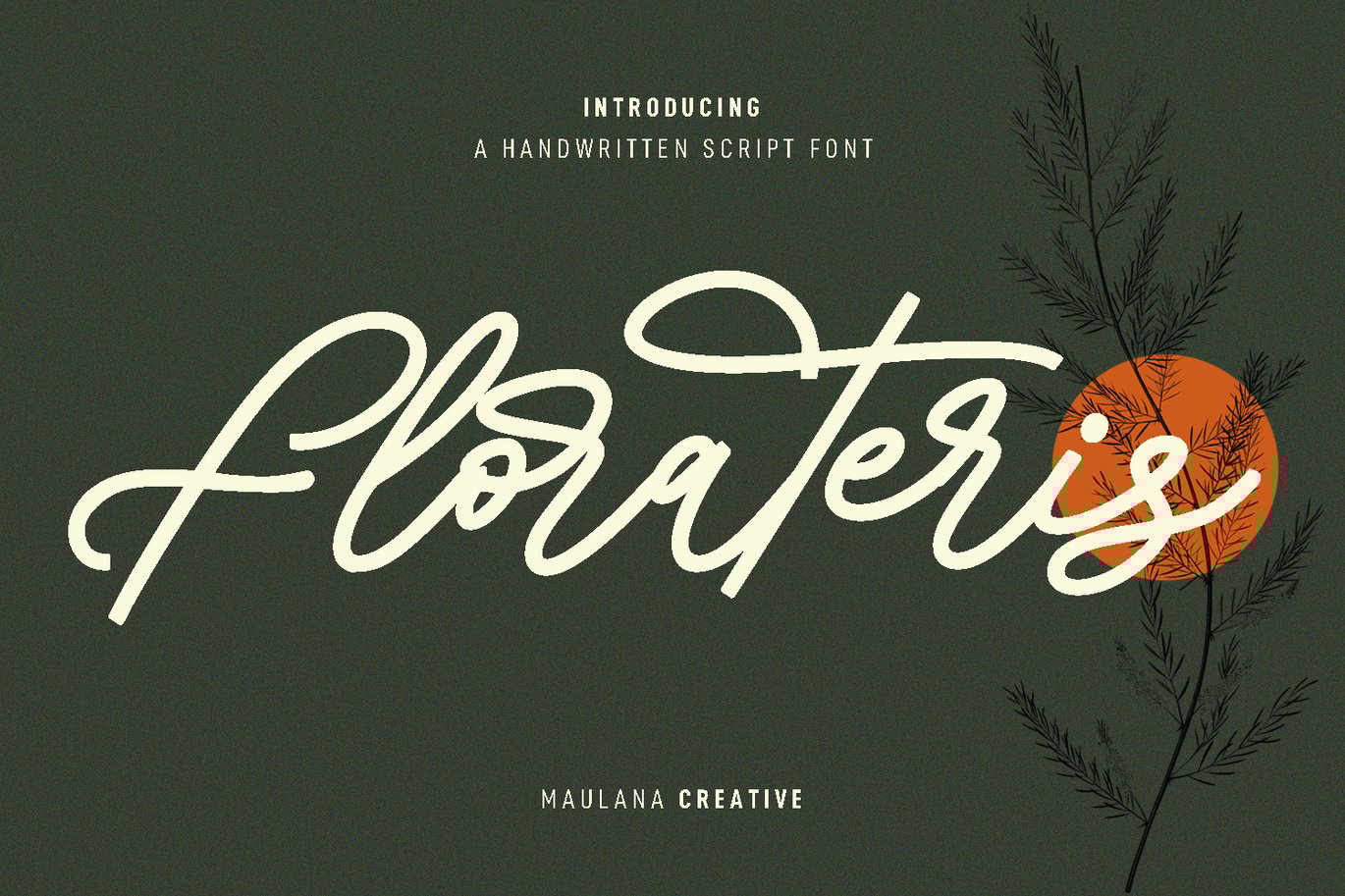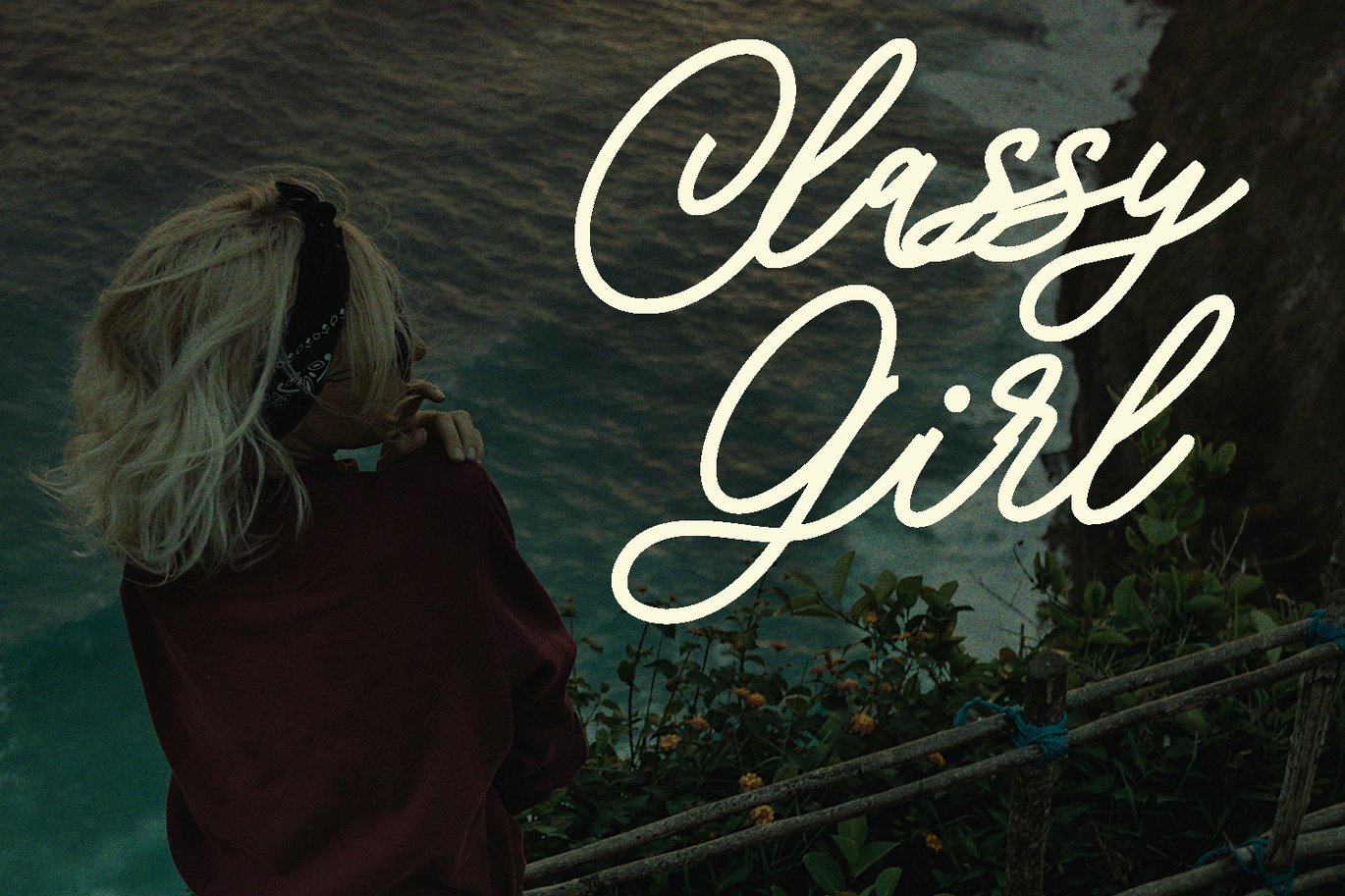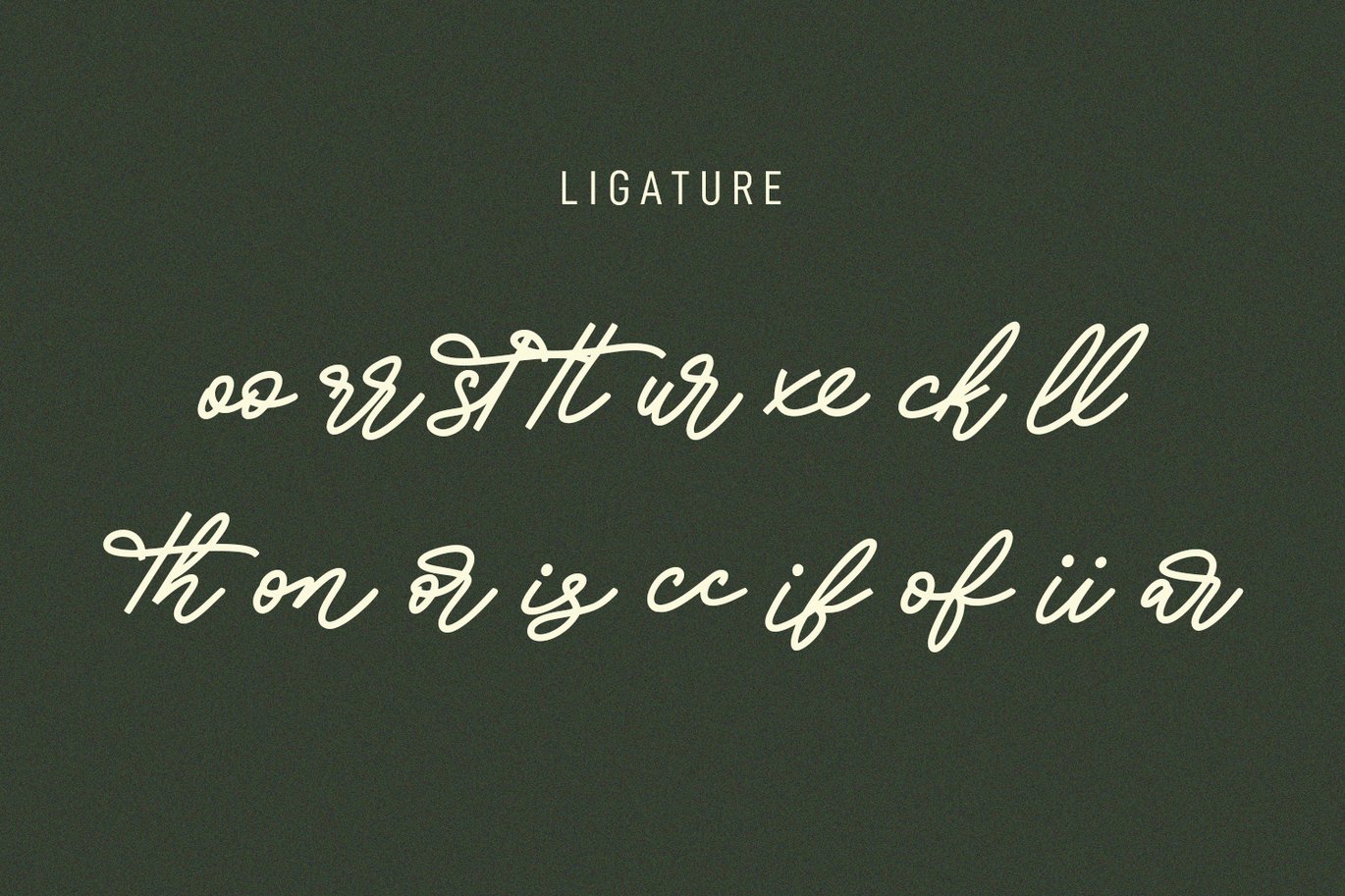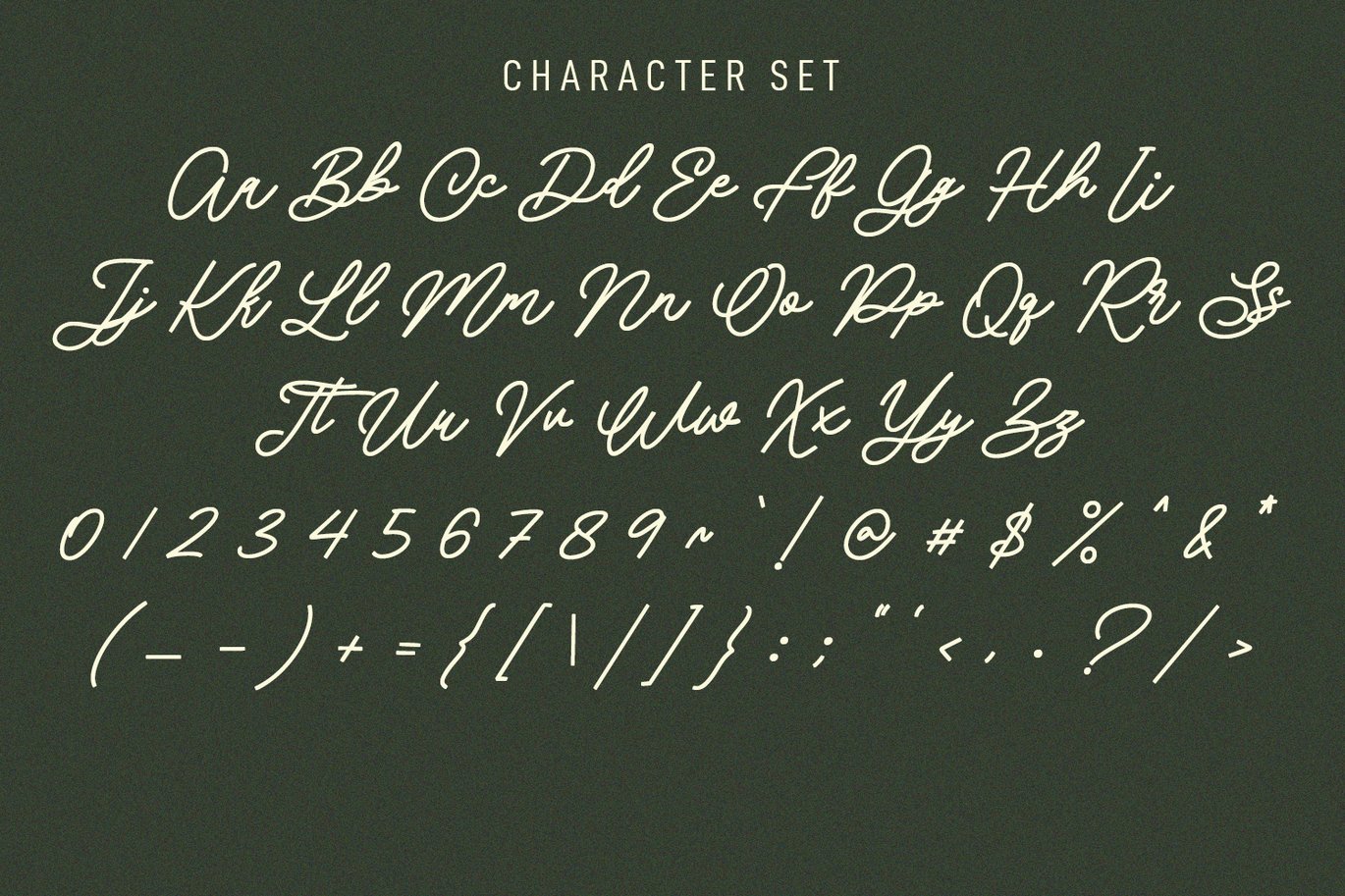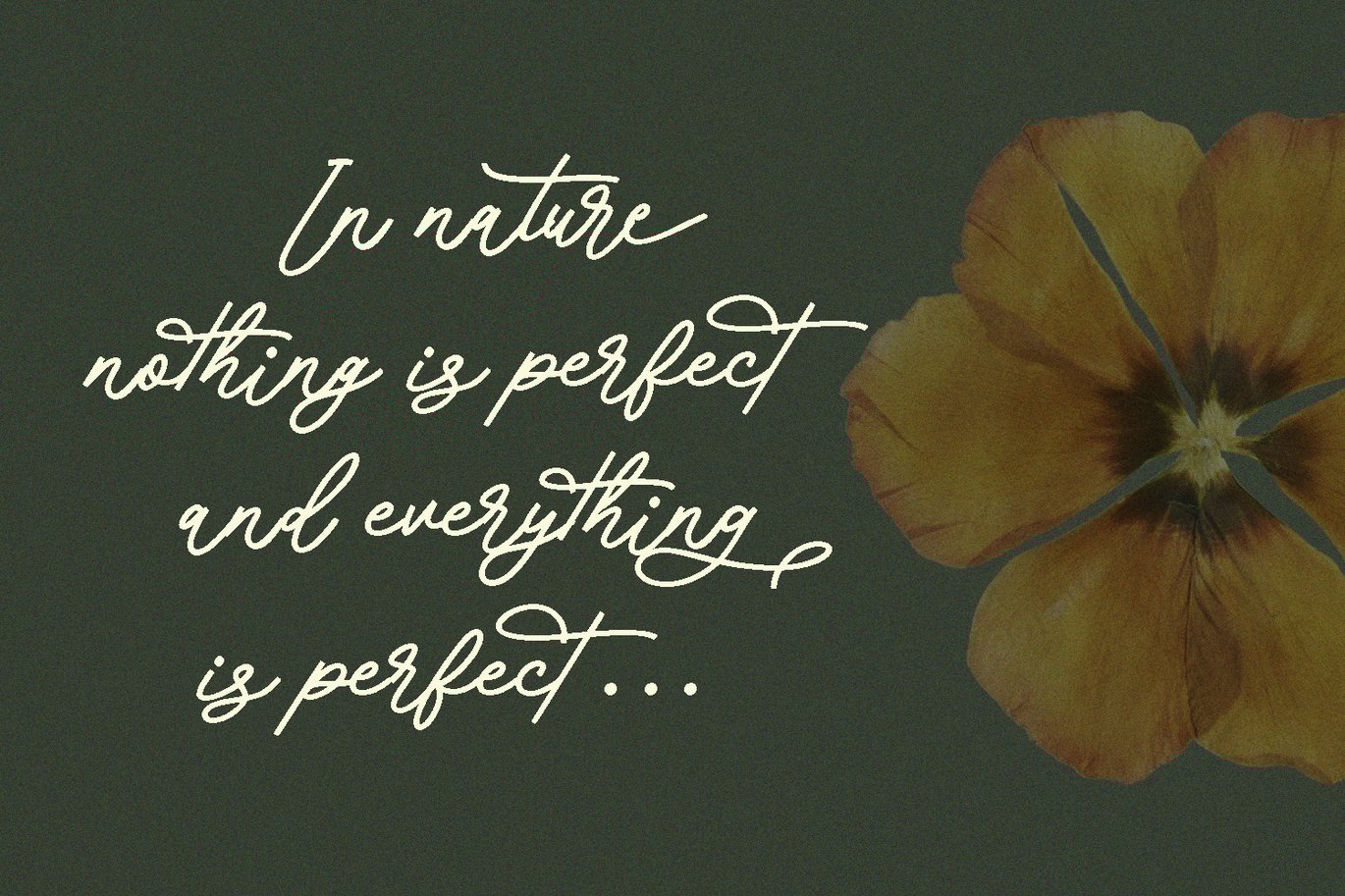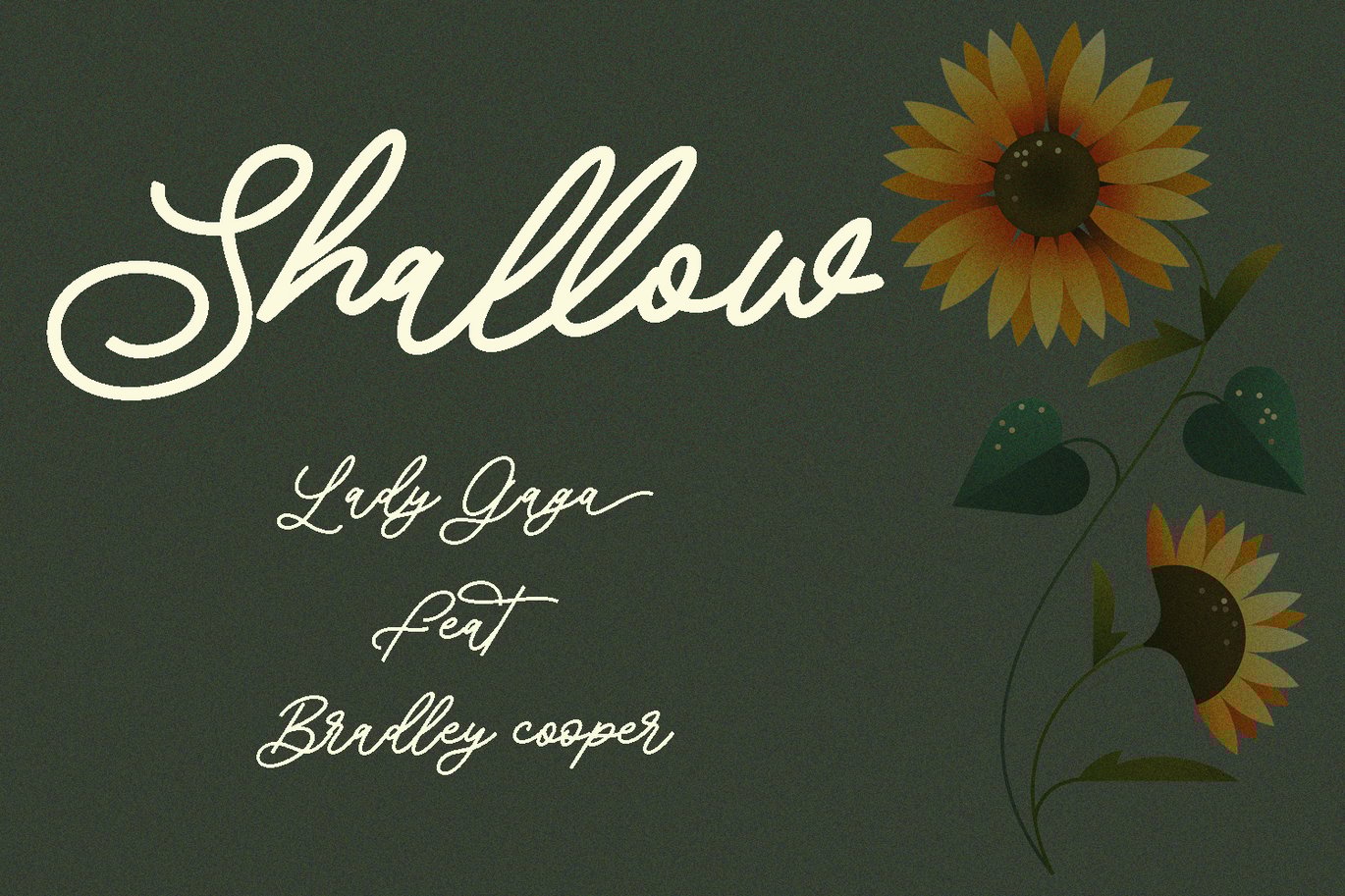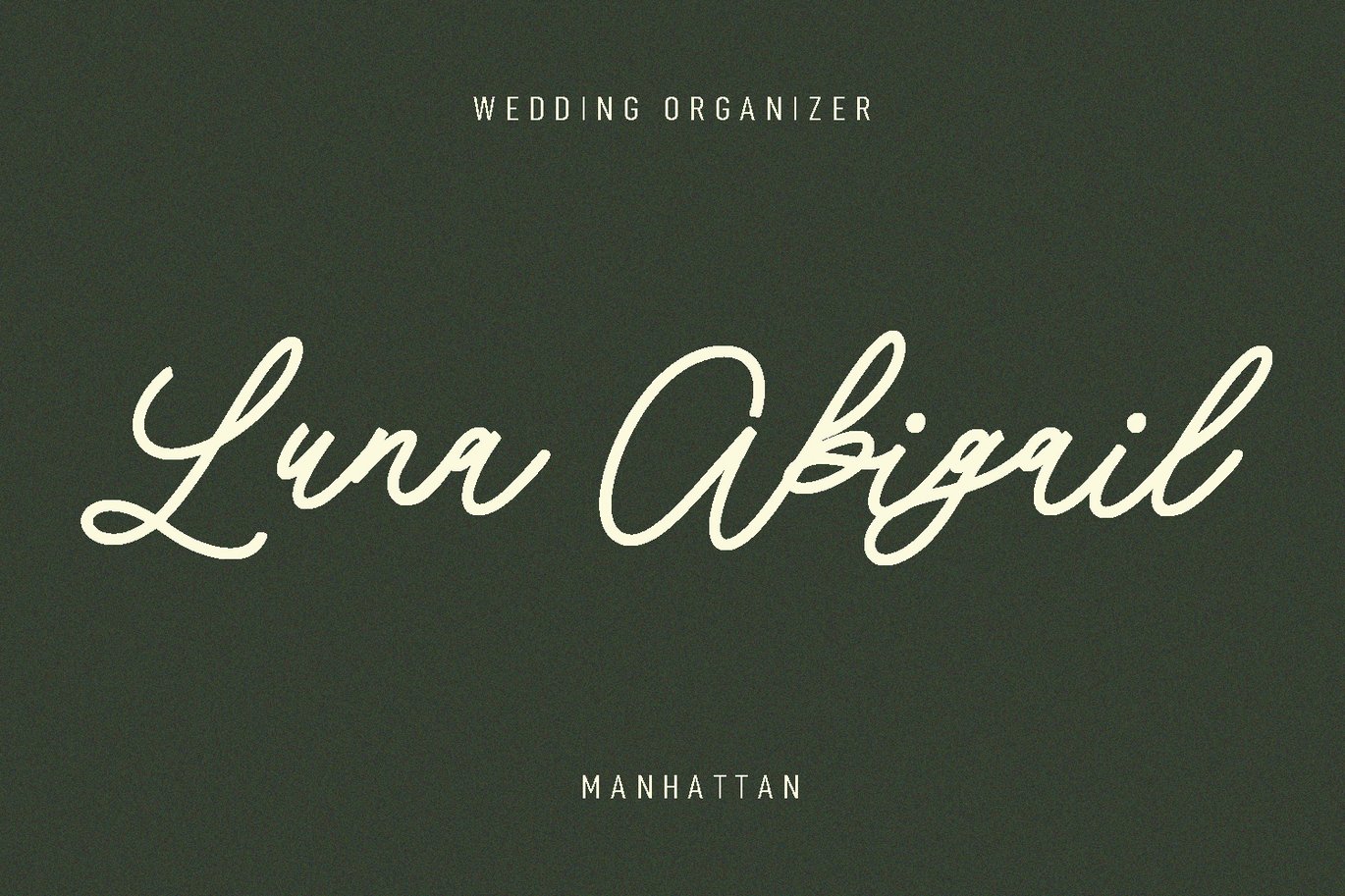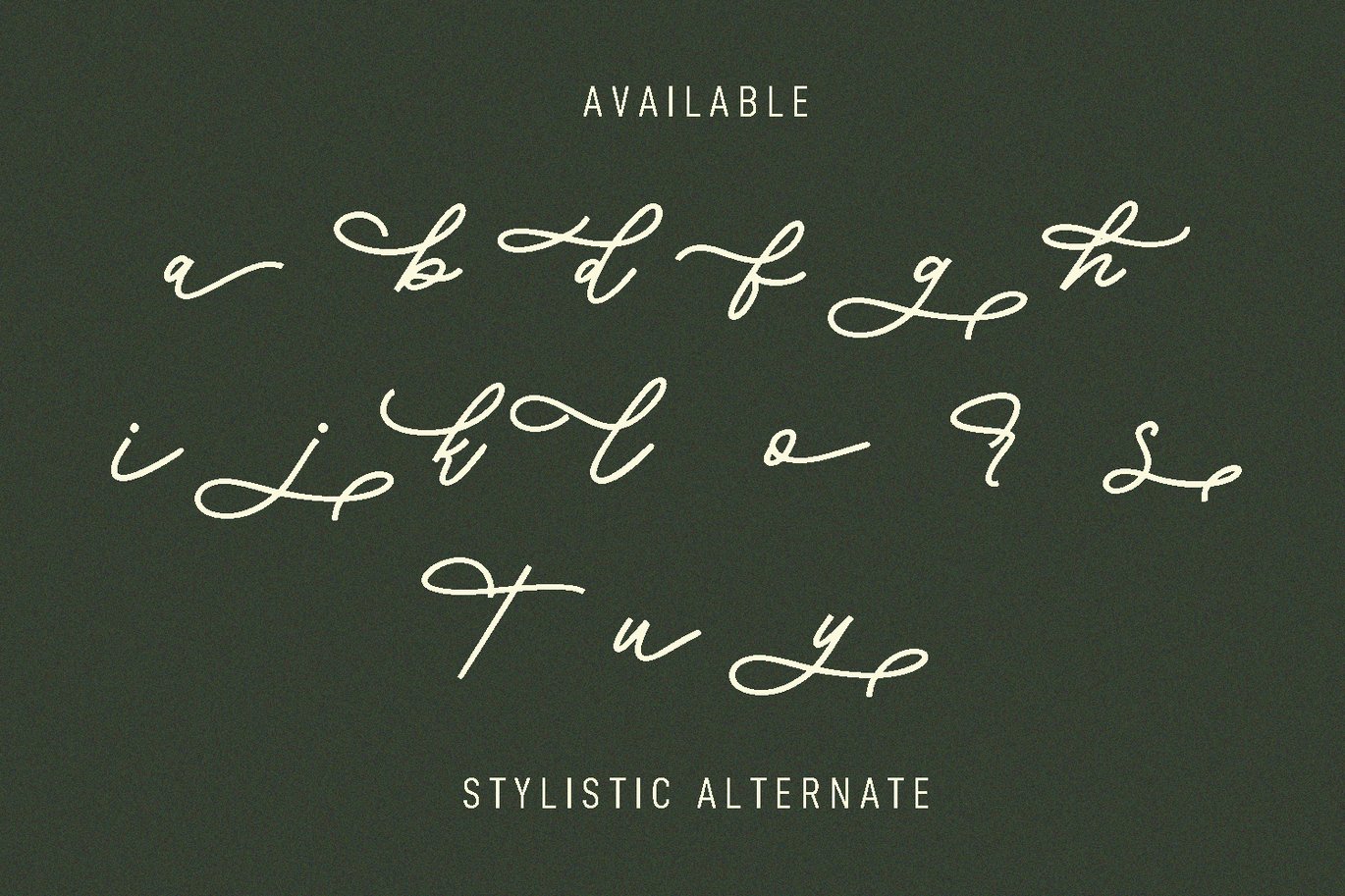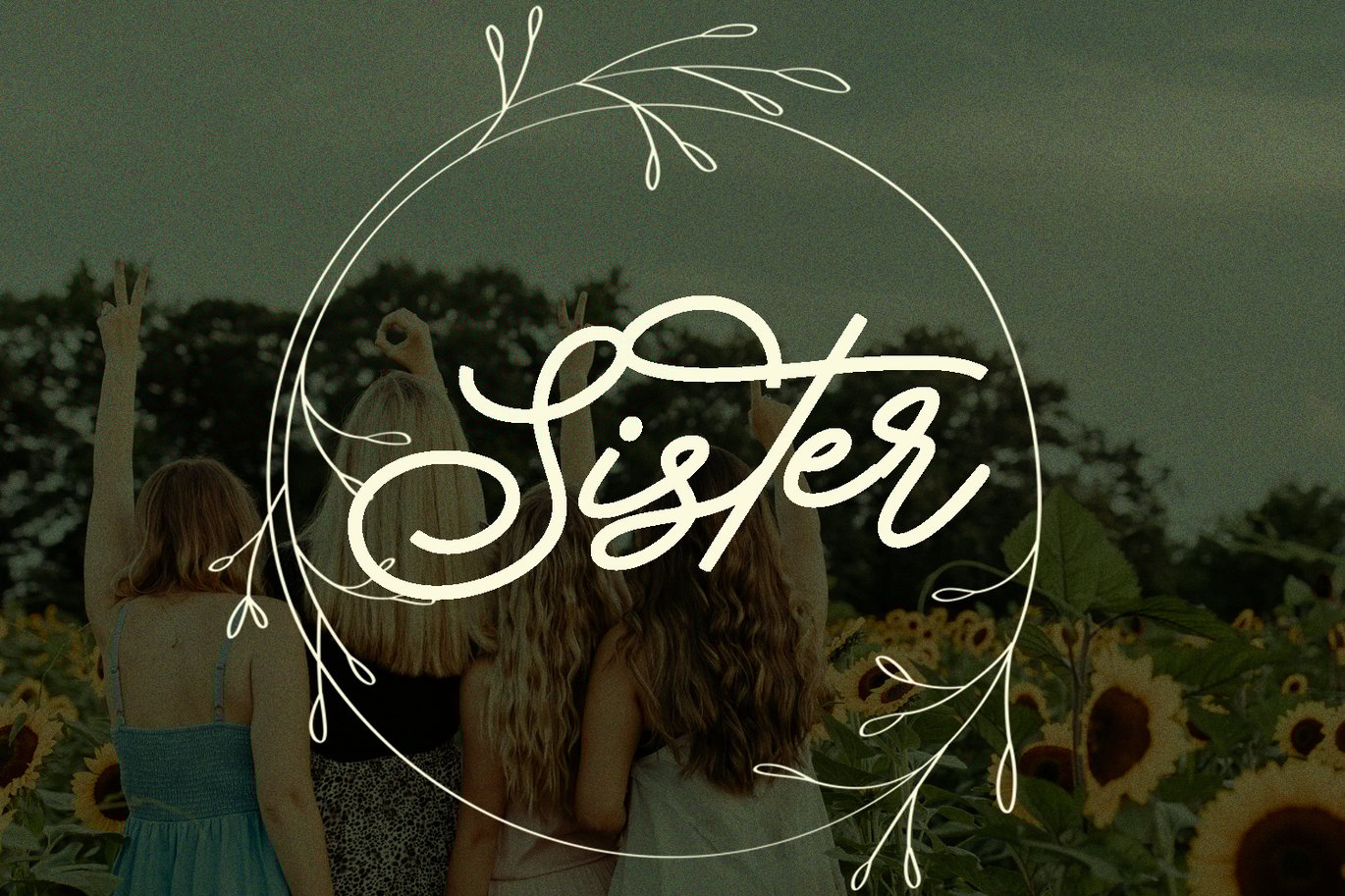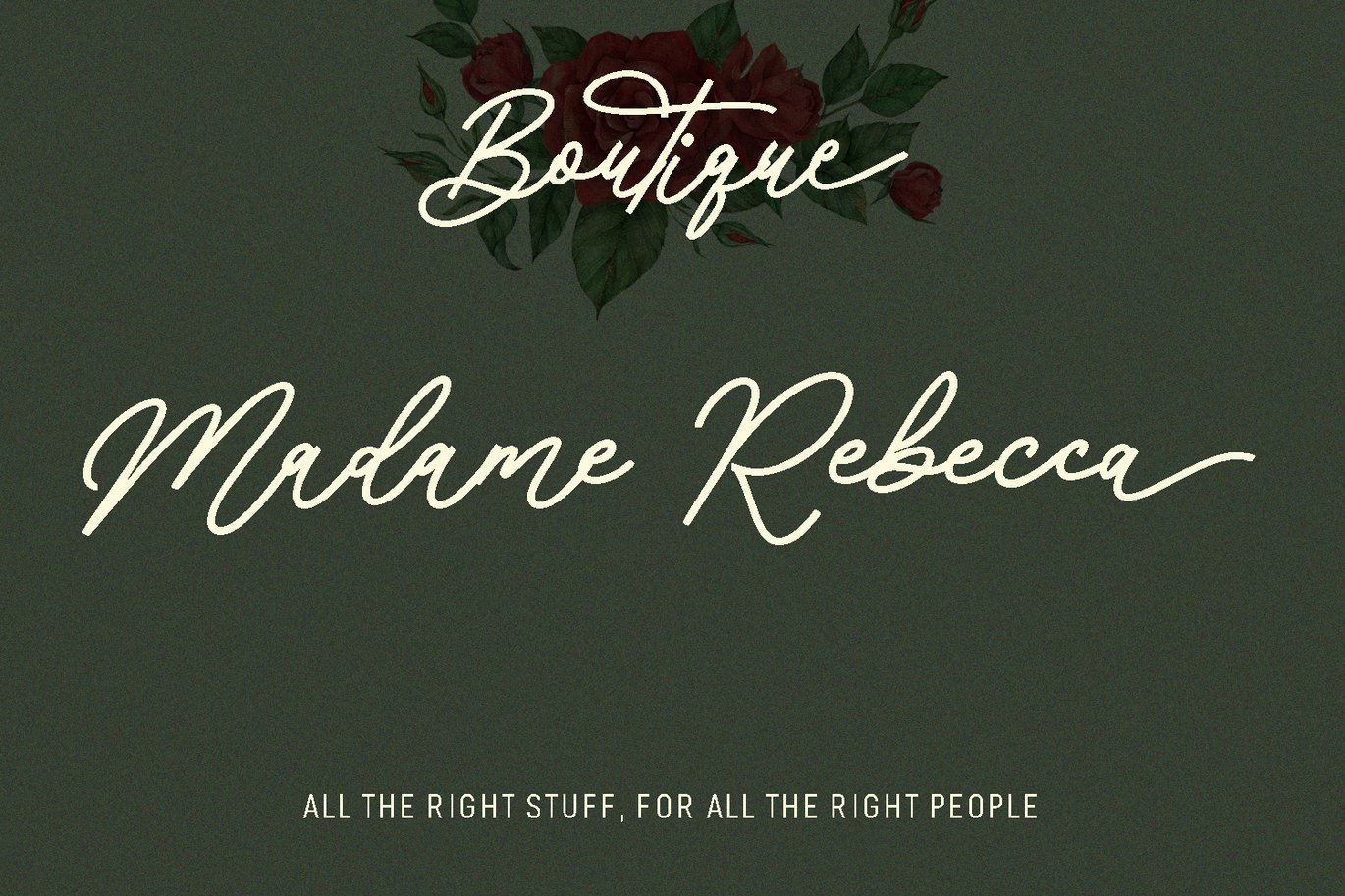
Florateris Cursive Script Font
Florateris is a fancy handwritten and cursive script font. With medium sharp edges consist stroke, fun character with a bit of ligatures and stylistic alternates. To give you an extra creative work. Florateris font support multilingual more than 100+ language. This font is good for logo design, Social media, Movie Titles, Books Titles, a short text even a long text letter and good for your secondary text font with sans or serif. Make a stunning work with Florateris font.